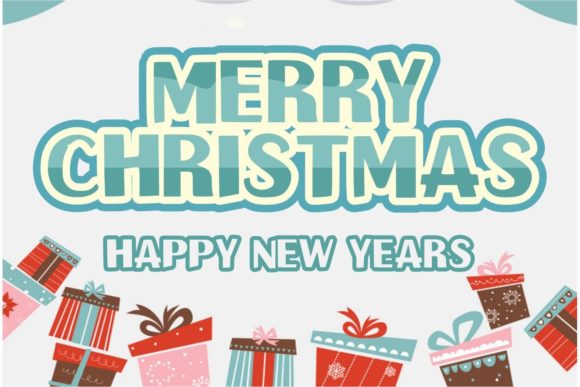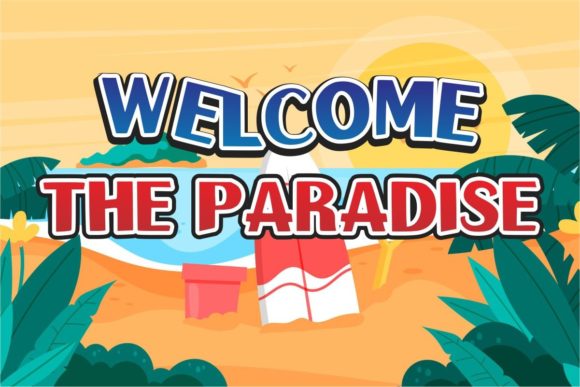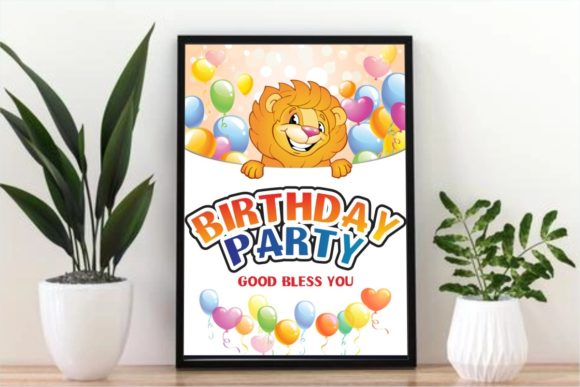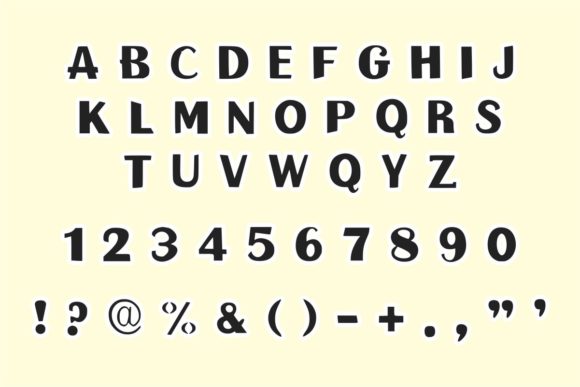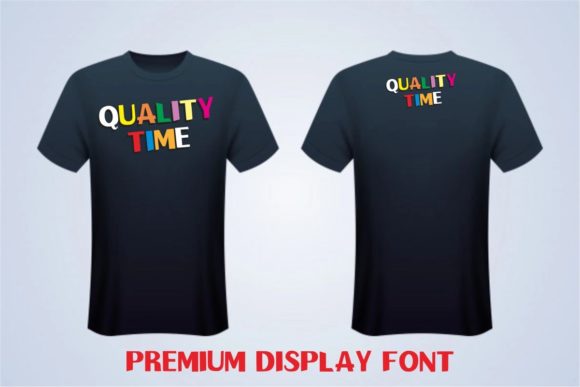
Introduction to Happy Day Font
Do you ever find yourself rummaging through your design files, desperate to find the perfect font to add that extra touch of personality to your latest project? For many creatives, this is a daily struggle. But what if I told you that there’s a font that’s sure to put a smile on your face and elevate your design to the next level?
Enter the Happy Day Font, a modern, playful, and easy-to-read display font that’s perfect for a wide range of creative projects. Whether you’re working on a greeting card, a digital design, or a presentation, this font is sure to convey the perfect message of impeccable hospitality.
Key Features of Happy Day Font
- High-Quality Design: The Happy Day Font is a premium design resource that offers a high-quality, professional look perfect for any creative project.
- Unique Characteristics: The Happy Day Font boasts a unique, playful design that is sure to add a touch of creativity to any project, from posters and flyers to digital graphics and more.
Honest Review: Happy Day Font
I recently stumbled upon the Happy Day Font while searching for a design resource to enhance a creative project. The font’s high quality and playful vibe immediately caught my attention.
- High-quality design: The Happy Day Font is crisp and clean, making it perfect for digital designs.
- Limited font styles: The Happy Day Font only comes in a few styles, which may not be sufficient for designers requiring a wide range of font options.
Overall, I’m impressed with the Happy Day Font’s quality and versatility. While it may not be ideal for every design project, it’s an excellent resource for designers working on creative projects that require a playful, high-quality font.
Happy Day Font
Tips for Getting the Most Out of Happy Day Font
For optimal results, use Happy Day Font on a transparent background to create a high-quality design resource. This font is perfect for creative projects, such as social media graphics, flyers, and posters. You can also use it to add a touch of personality to your branding materials.
Happy Day Font is ideal for use in a variety of creative projects, including:
- Flyers and posters
- Invitations and event materials